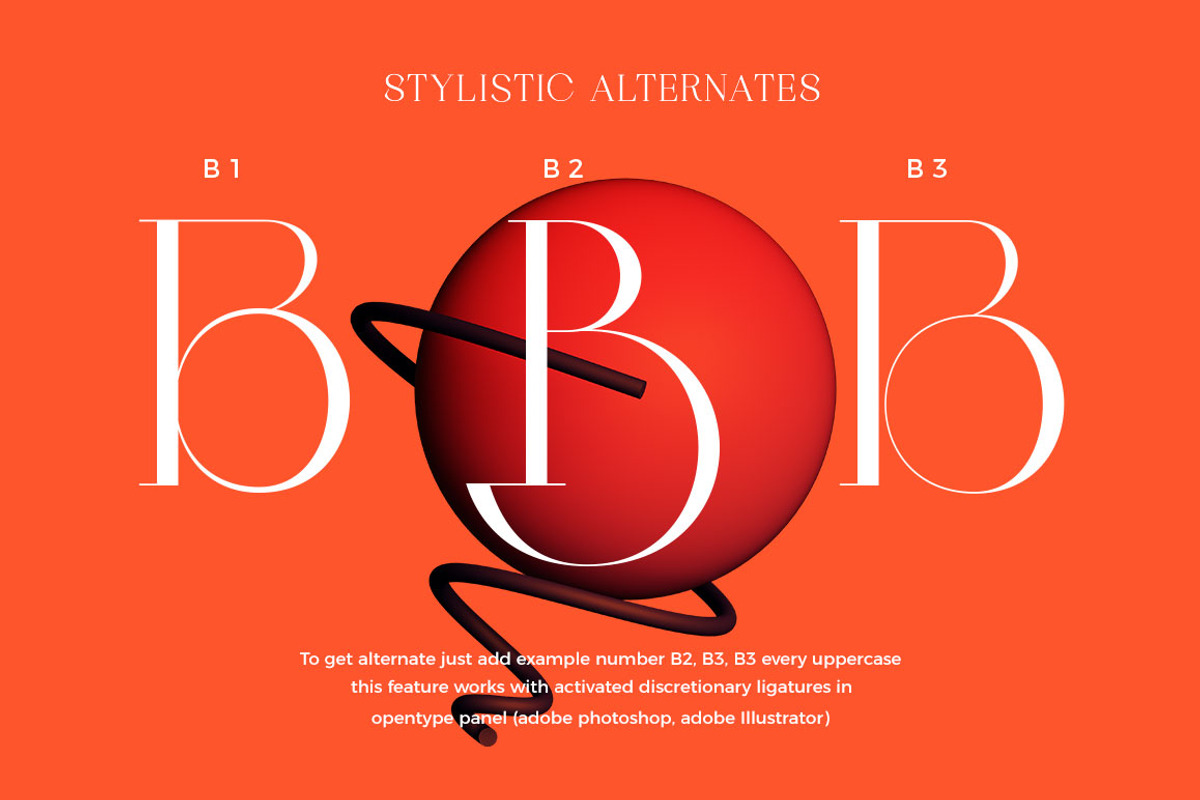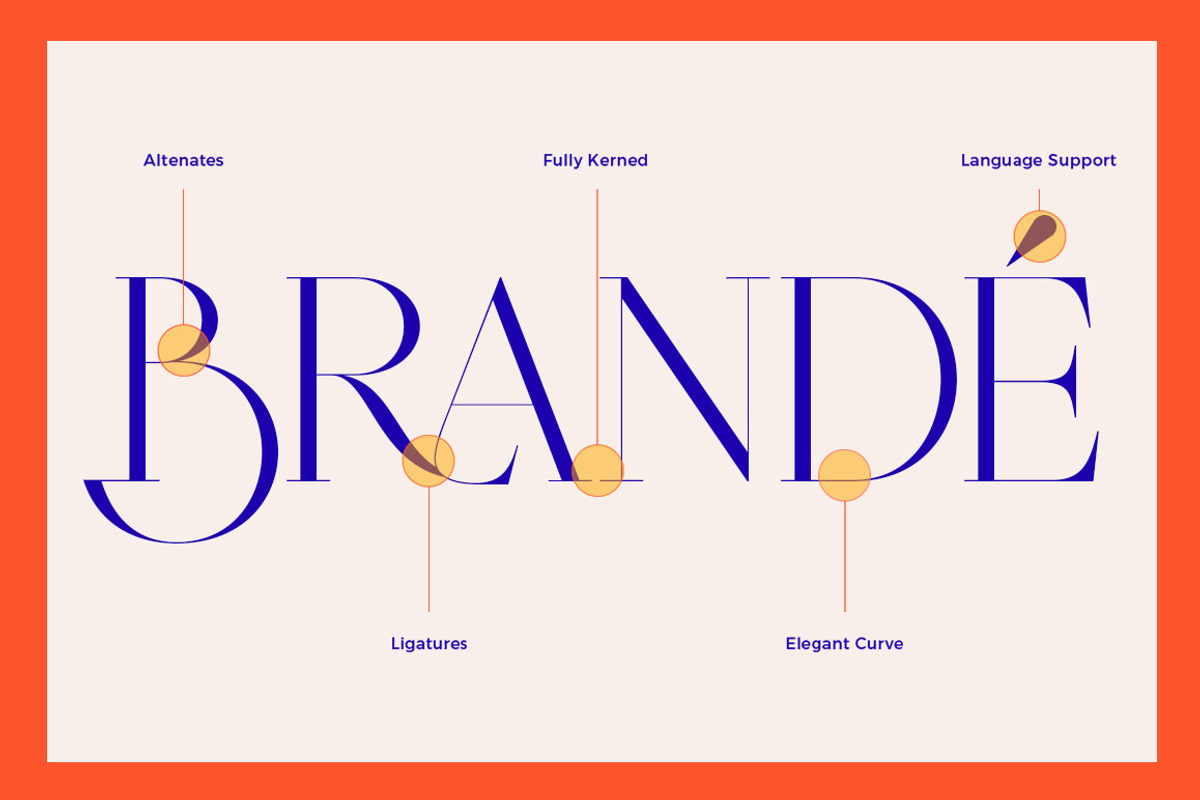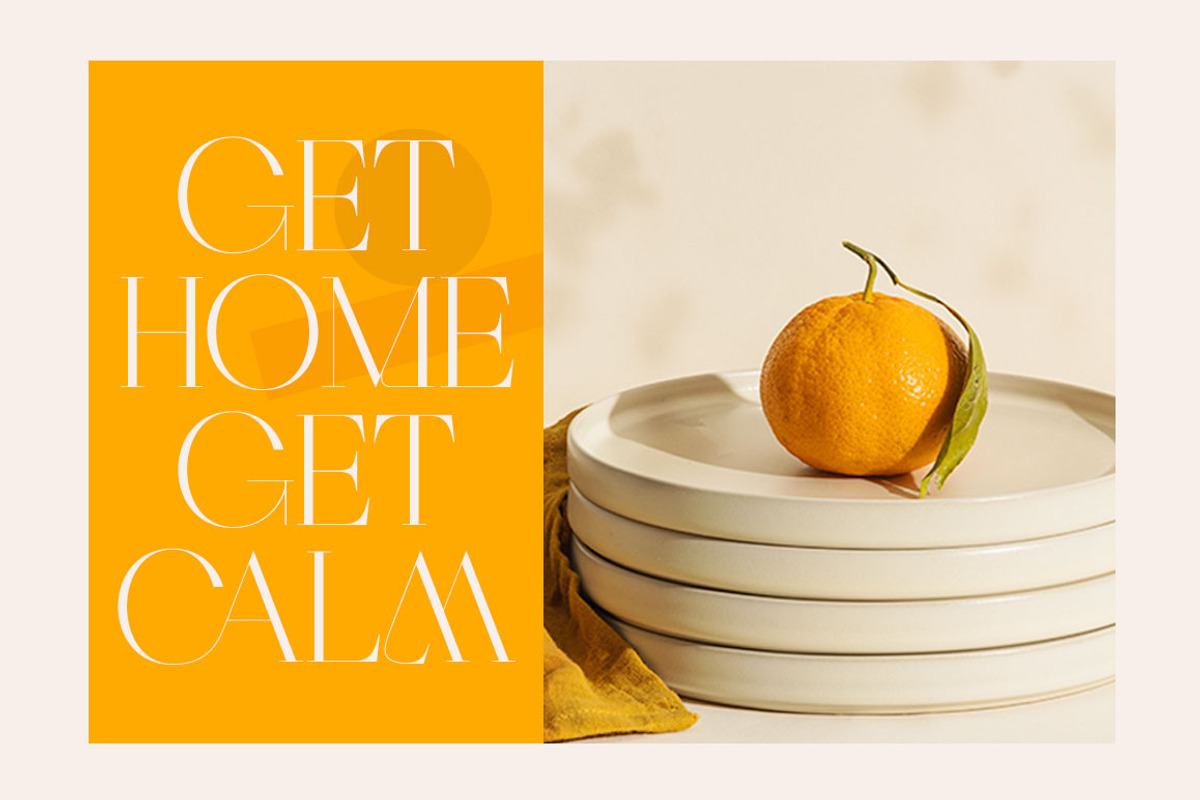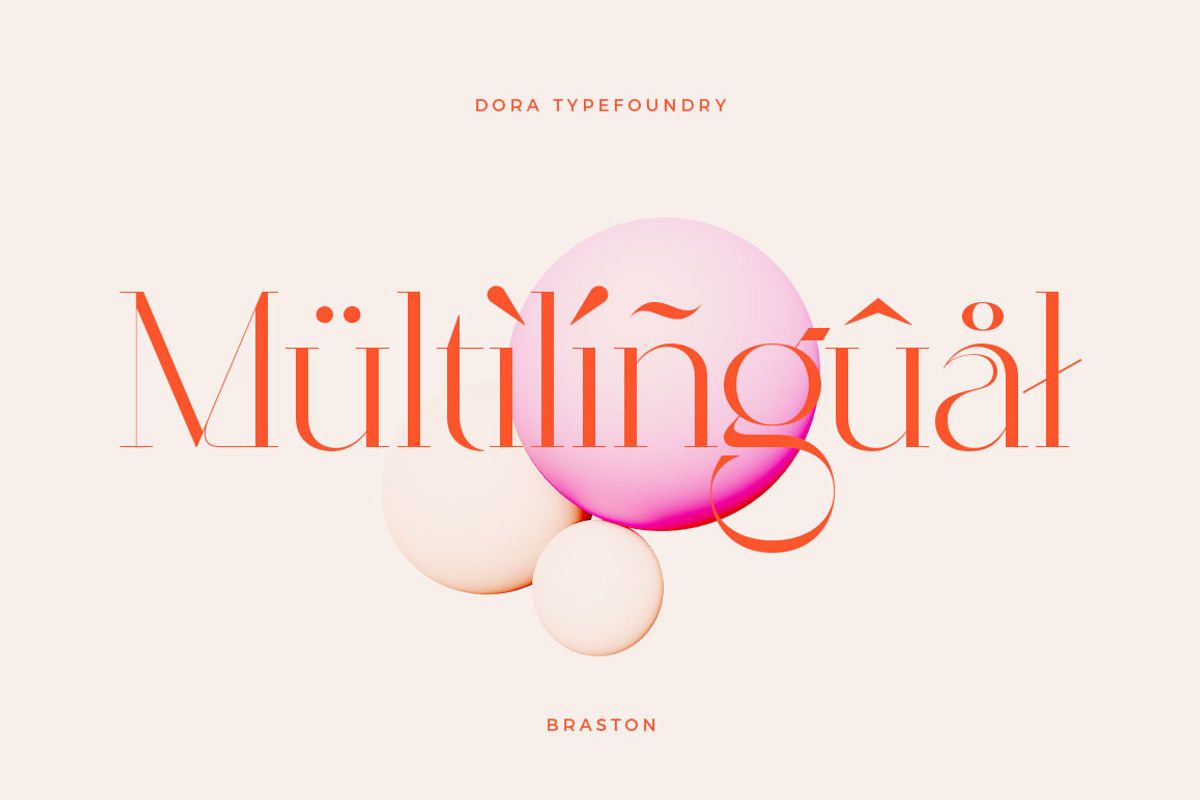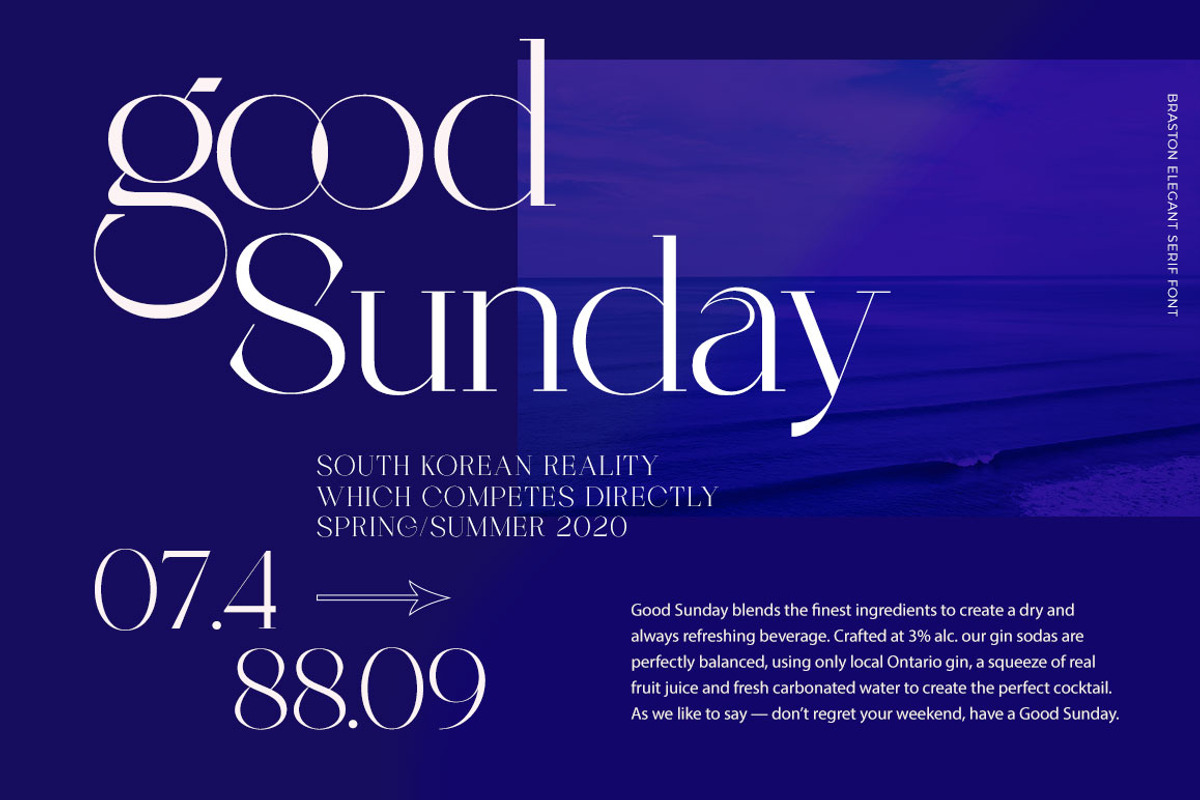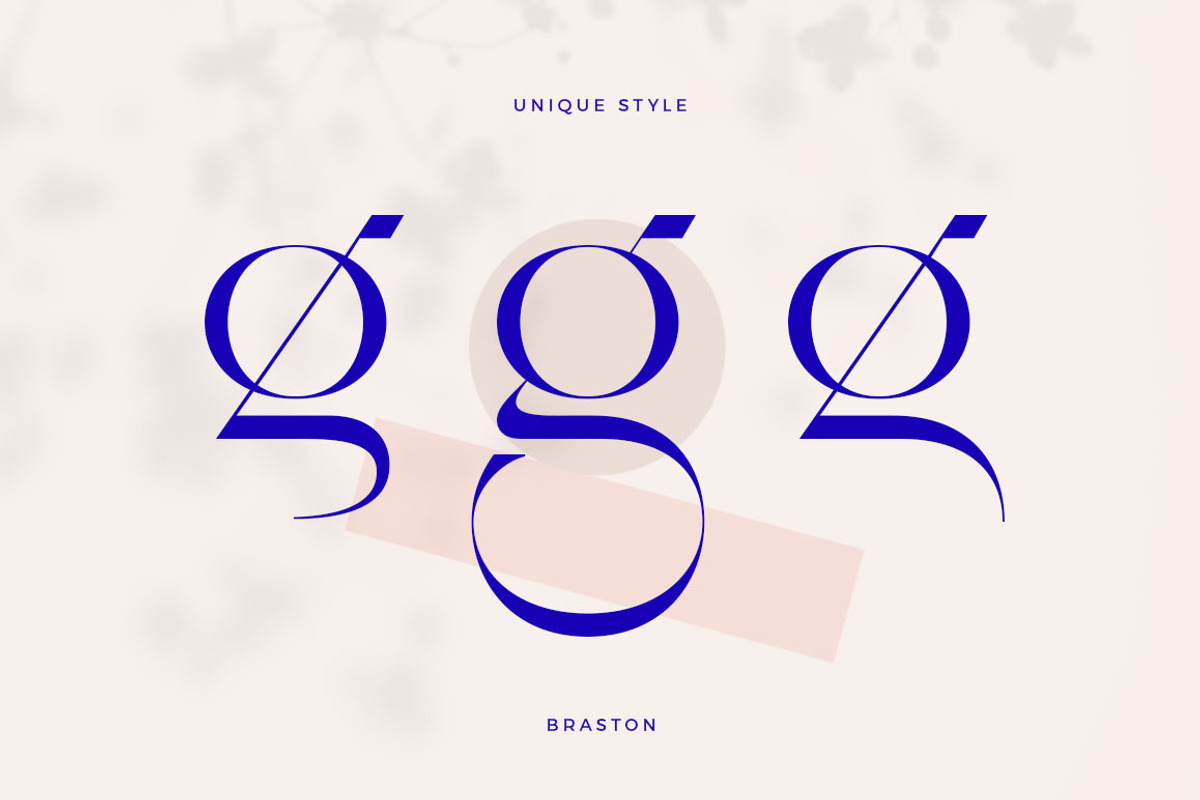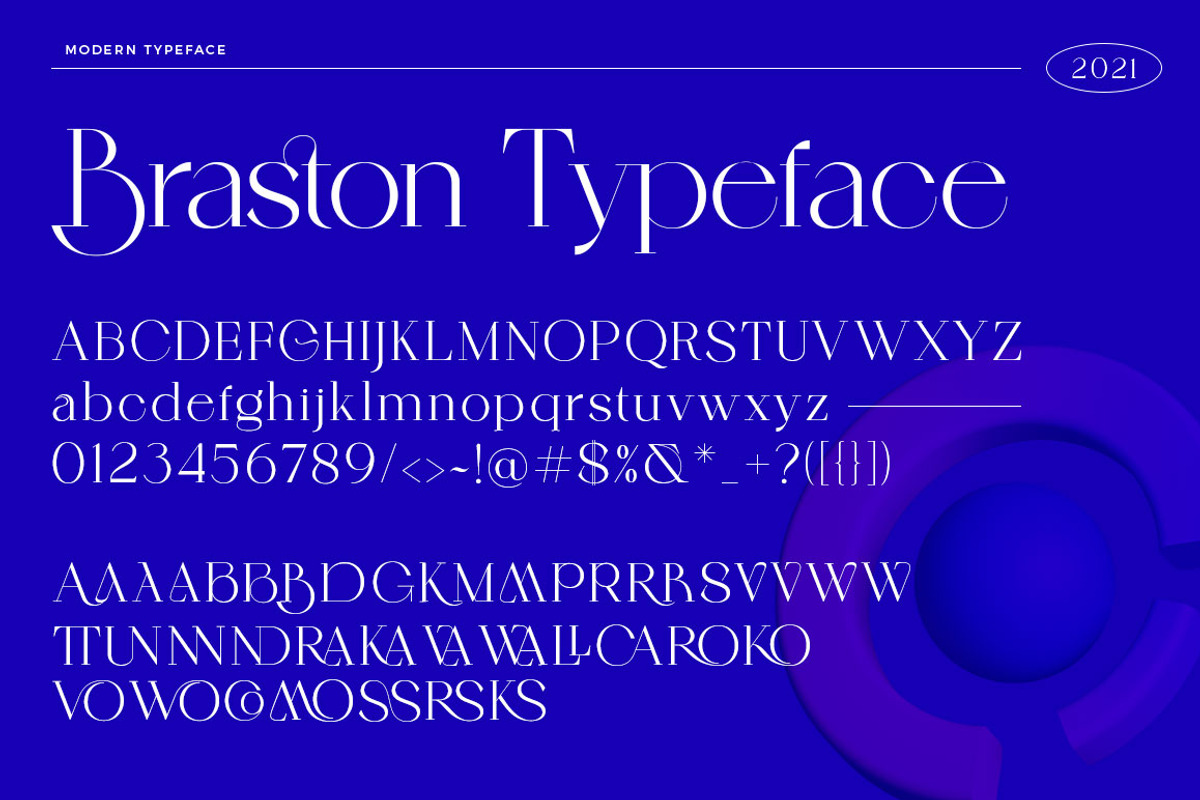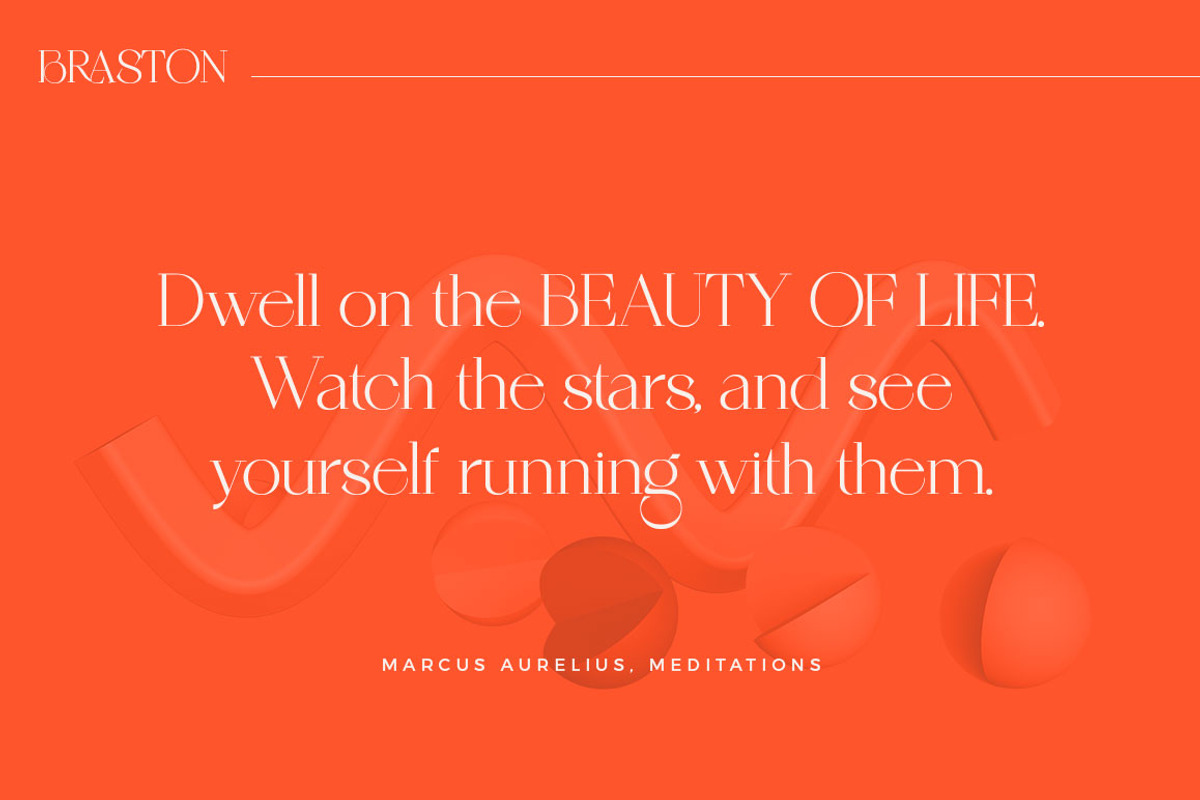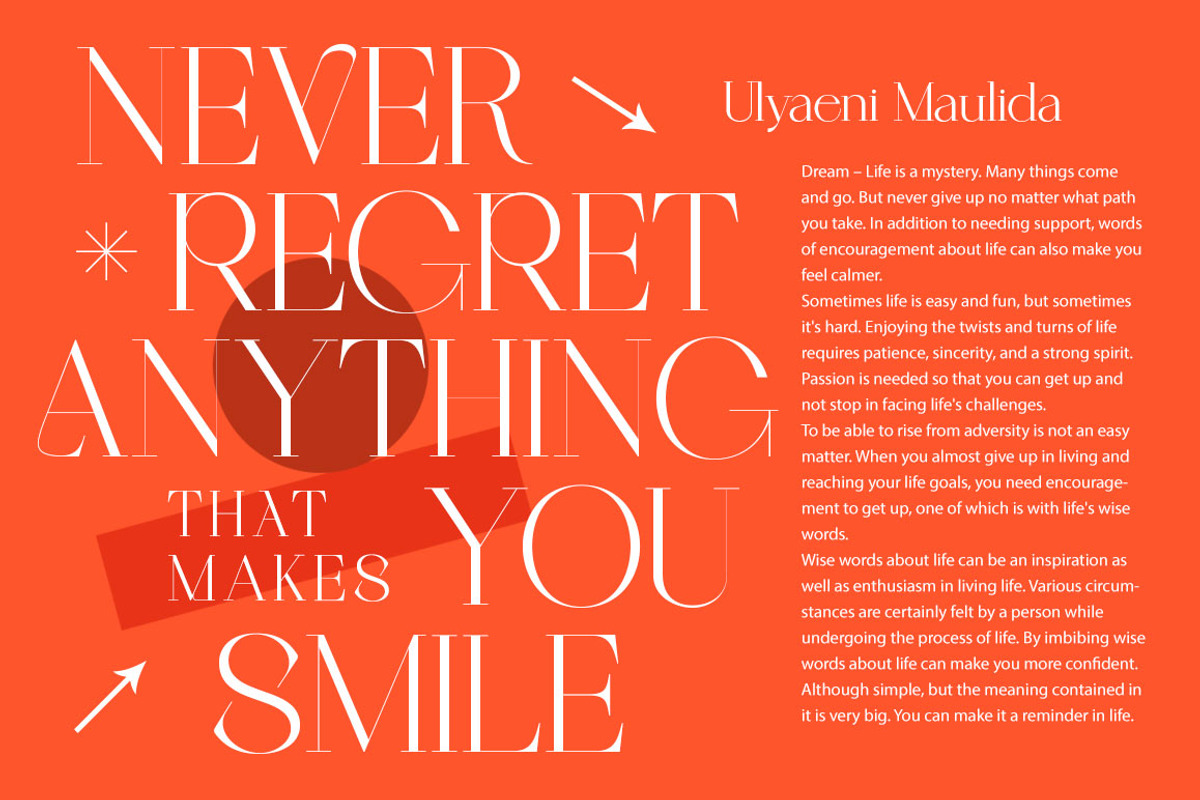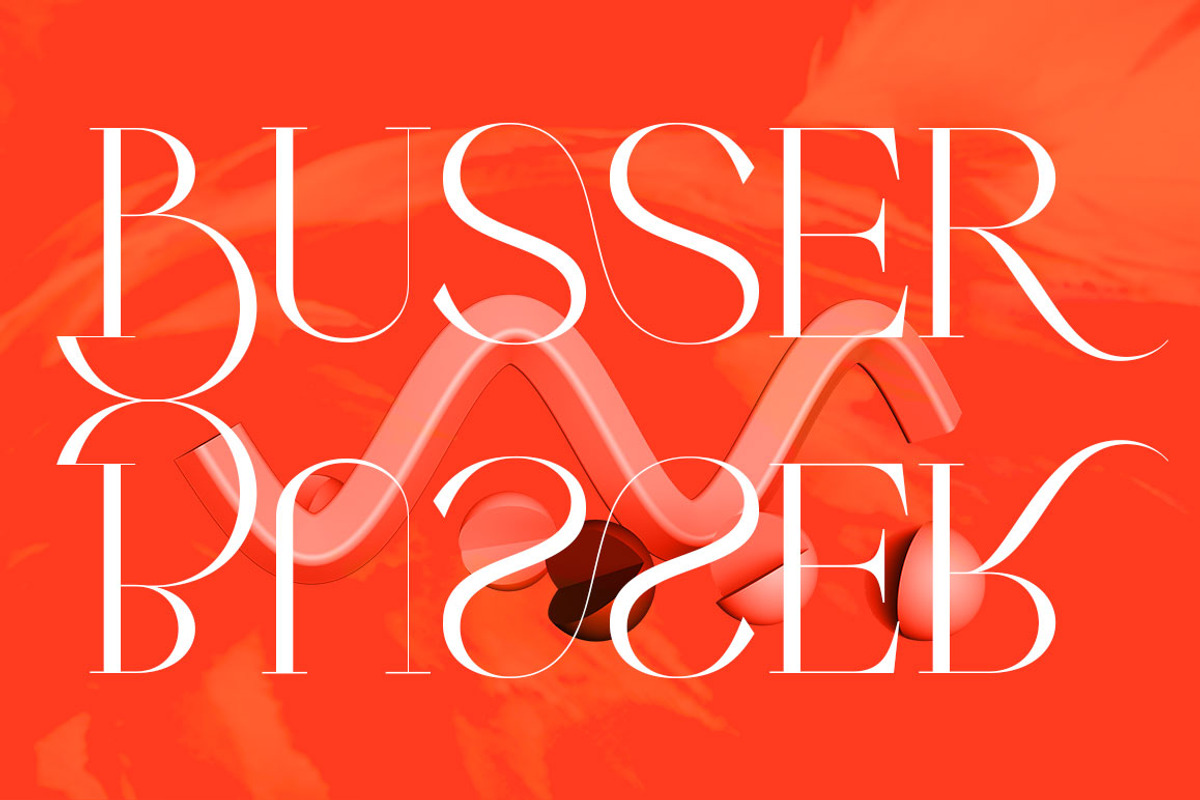
Braston - Elegant Serif Font
Introducing our new typeface, Braston - A modern, unique and decorative serif typeface that comes with a binder and alternative characters that are perfect for creating variety in your designs.
Braston is a mix of sweet curves with lowercase sets and strong impact fonts for uppercase sets making it even more elegant this typeface will allow you to create stunning and original layouts for print and web, Branding, Logo Design, invitations, quotes, blog headers , posters and advertisements. use it endlessly.
- Characters with accents
- Supports Multiple Languages
This type of family has become a work of true love, making it as easy and enjoyable as possible.